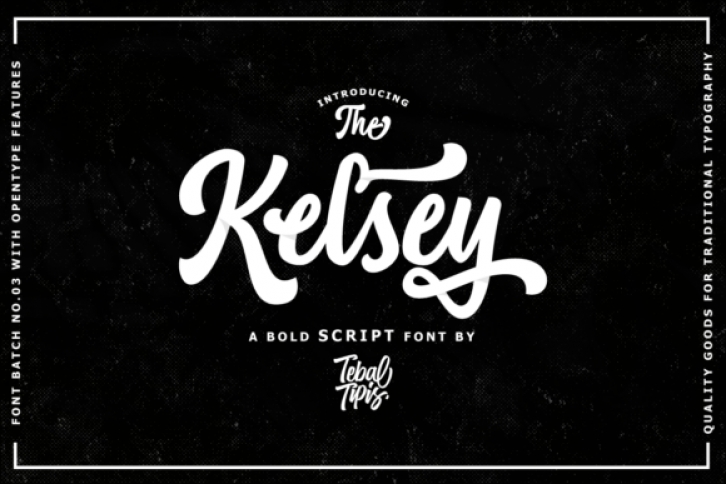
Kelsey is a flowing and beautiful handwritten font. This font is PUA encoded which means you can access all of the glyphs and swashes with ease! It features a varying baseline, smooth lines, gorgeous glyphs and stunning alternates. Fall in love with its incredibly versatile style and use it to create gorgeous wedding invitations, beautiful stationary art, eye-catching social media posts, and much more!